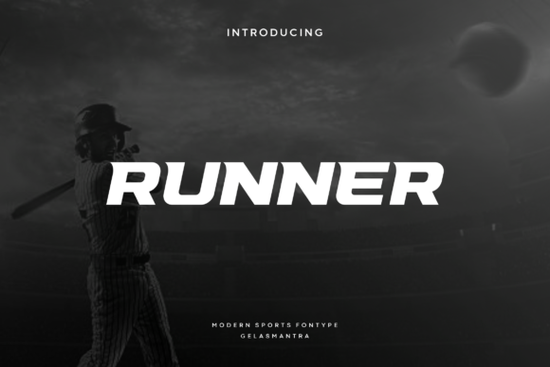
If you’re working on a project that needs to feel fast whether it’s a race-day poster, a cycling jersey design, or a logo for your local running club the Runner Font is worth a closer look. It’s built with wide italic letterforms, modern cutouts, and a noticeable slant that gives everything you type a sense of motion. Even at smaller sizes, it stays readable without losing that energetic punch.
This isn’t just another display font. The way the letters lean forward pulls the eye along, making it perfect for anything tied to speed, competition, or movement. Think automotive branding, fitness apps, event banners, or even motivational quote graphics. And if you’ve tried fonts like Belmore or Permanent Park for bold headlines but needed something with more momentum, Runner fills that gap neatly.
What kinds of projects work best with Runner Font?
You don’t need to be designing for NASCAR to make good use of this font. Here are some real-world uses where it shines:
- Sports branding – Team logos, player jerseys, tournament posters
- Event promotions – 5K runs, bike races, skate competitions
- Automotive designs – Car wraps, garage signage, racing game UI
- Print-on-demand products – T-shirts, mugs, phone cases with action-oriented quotes
- Social media graphics – Instagram stories for fitness coaches or race day countdowns
It also pairs well with cleaner sans-serifs for body text. Try combining it with something like Allspice for contrast you get impact up top and clarity underneath.
How does it compare to other dynamic display fonts?
Runner doesn’t try to be overly ornate. Its strength is in its controlled energy. Unlike some fonts that rely on exaggerated angles or jagged edges to imply speed, Runner keeps things sleek. The cutouts inside letters (like in “R” or “A”) add visual rhythm without cluttering the form.
If you’ve used Anton before, you’ll notice Runner has more tilt and personality. Where Anton feels broad and blocky, Runner leans into motion. And compared to USA Day, which leans patriotic and retro, Runner feels more contemporary and globally versatile.
For designers who sell digital products or printables, this font holds up well across different mediums. Whether you’re exporting SVGs for cutting machines or PNGs for Etsy listings, the strokes stay crisp. No fuzzy edges or lost details at 300 DPI.
A few tips when using Runner Font
- Use sparingly. This is a headline font. Don’t set paragraphs in it your readers will thank you.
- Try all caps. The uppercase letters have stronger presence and better spacing for logos or titles.
- Add subtle effects. A light drop shadow or gradient can enhance the sense of depth without overpowering the design.
- Check kerning manually. Some letter pairs (like “AV” or “To”) might need slight tweaks depending on your layout software.
It’s especially handy if you’re juggling multiple client projects. One font family that works for both a marathon poster and a go-kart track logo? That’s efficiency.
Fonts like Runner remind us that good design doesn’t always mean adding more it’s about choosing the right tool for the feeling you want to create. If your next project needs to move, this one’s already leaning into the finish line.